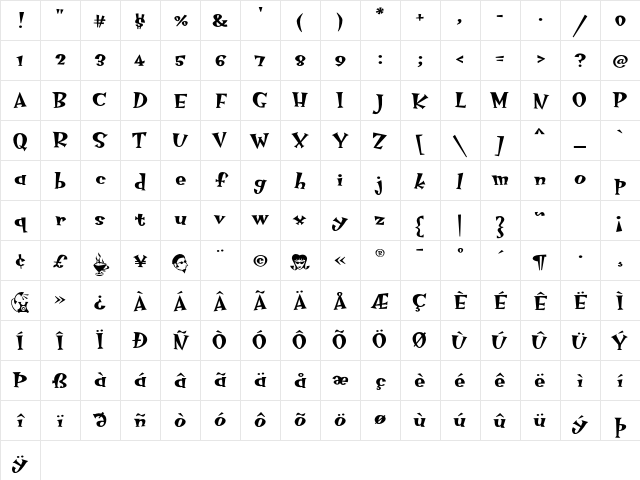
Complete HotsyTotsy Semibold-MvB glyph index. Displaying only characters natively supported by HotsyTotsy Semibold-MvB font.
HotsyTotsy is a composed and adaptable typeface that performs quietly and consistently across a wide range of design contexts. Its bold stroke weight gives it real presence on the page.